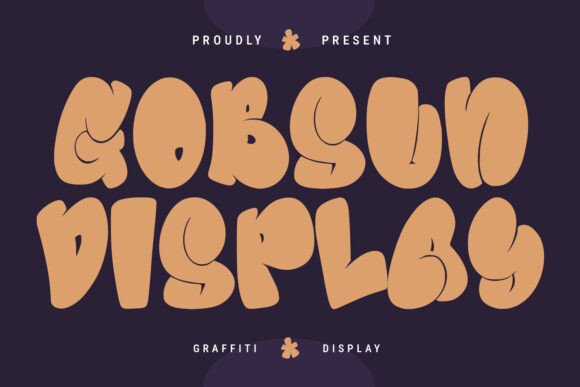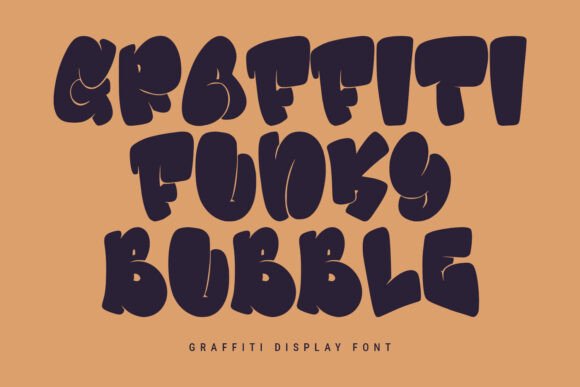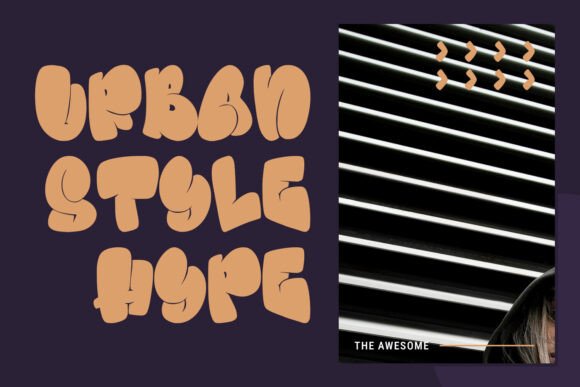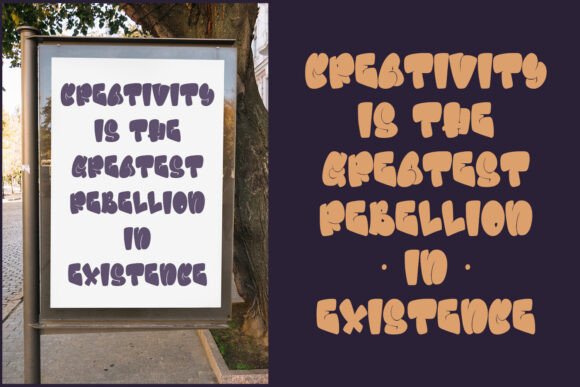
Gobsun Font: A Funky Bubble Font for Eye-Catching Headlines
About the Gobsun Font
Discover the charm of Gobsun Font. This font is a perfect blend of modern aesthetics and classic appeal. Give your designs an authentic brush handcrafted feel. “Gobsun Graffiti Display Font” is perfectly suited to signature, stationery, logo, typography quotes, magazine or book cover, website header, flyer, clothing, branding, packaging design and more.
Gobsun’s bold, hand-crafted feel makes it ideal for headlines, short impactful statements, and branding projects requiring a strong visual identity. It excels in applications like posters, logos, and packaging where its unique texture adds character. However, its highly decorative nature makes it unsuitable for body text or UI elements where readability is paramount. Avoid using it for large blocks of text.
Pair Gobsun with clean sans-serif fonts like Montserrat or Open Sans for a balanced contrast, allowing the display font to shine while maintaining readability. For a more playful feel, consider pairing it with a rounded geometric sans-serif such as Lato. Alternatively, a delicate script font can add a touch of elegance and sophistication.